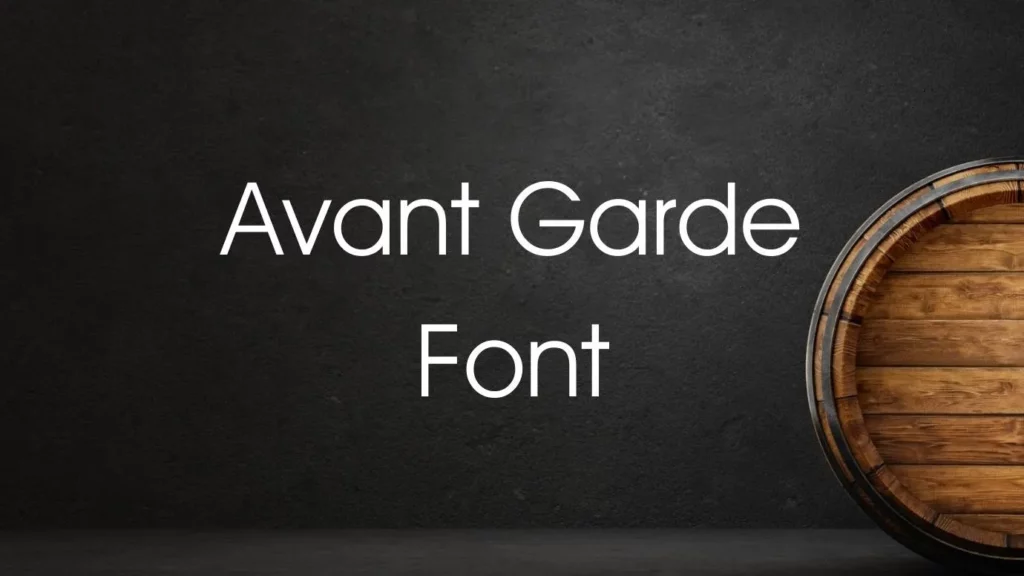
Introducing the amazing and top-notch typeface that has a basic but quite professional character that is entitled Avant Garde Font. It has been designed by Herb Lubalin and Tom Carnase. The typeface style belongs to the geometrical sans serif family and has an outstanding texture appearance.
The typeface style has 4 amazing weights and all weights include TTF features. The typeface style is derived from the logo that was used in the magazine of Avant Garde. You may find it's similar fonts to google fonts and adobe fonts likewise. While the typeface family is only available to free for personal utilization. You can also pair the typeface with Evogria Sans Serif Font.
The typeface family comprised uppercase, lowercase, symbols, numbers and numerals, and best punctuation. However, you can study the detailed history of the typeface style on Wikipedia as well.
It is an amazing geometrical sans serif typeface that has a basic but quite professional character. You can check the Nimbus Sans Font that goes well with this typeface.
The typeface style is derived from the logo that was used in the magazine of Avant Garde. It belongs to the geometrical sans serif family and has an outstanding texture appearance.